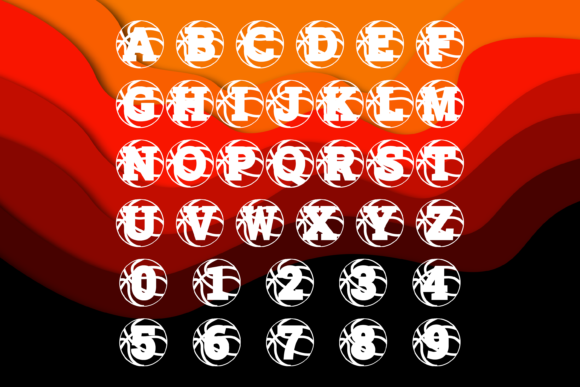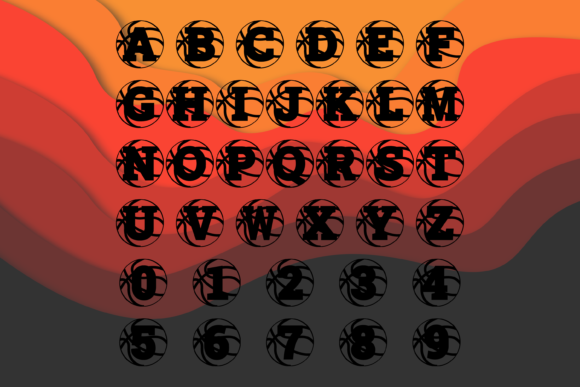
Introduction to Lay Up Font
Remember that moment when you’re working on a creative project, and you’re struggling to find the perfect font to bring it all together? It’s like searching for the missing piece of a puzzle. But what if you stumbled upon a font that instantly elevates your design, making it stand out from the crowd? For designers, finding the right font can be a game-changer, and that’s exactly what the Lay Up Font offers.
As a valuable design resource, the Lay Up Font is perfect for any sports-related design ideas. Its simplicity and strong visual effect make it an ideal choice for creating high-quality designs that grab attention. Whether you’re working on a project that requires a free download or a design that needs a transparent background, the Lay Up Font is a great addition to your design toolkit.
Key Features of Lay Up Font
• High-quality design resource ideal for creative projects
• Unique, modern design with clean lines and geometric shapes
• Perfect for use in logos, branding, and other graphic design applications
• Designed to be versatile and adaptable to various design styles
Honest Review: Lay Up Font
I recently had the chance to work with the Lay Up Font, and I’m excited to share my honest review. As a designer, I’m always on the lookout for high-quality design resources to elevate my creative projects. The Lay Up Font did not disappoint.
• ✨ Clean and modern aesthetic: The Lay Up Font has a sleek and sophisticated design that’s perfect for a variety of projects, from branding to editorial content.
• ✨ High-quality design: The font is crisp and well-designed, making it a great choice for any project that requires a professional look.
• ⚠️ Limited character set: While the font is well-designed, it’s limited in terms of character set, which may not be suitable for projects that require a wide range of characters.
Overall, I’m impressed with the Lay Up Font. It’s a great choice for designers who want a high-quality, modern font for their creative projects. While it may have some limitations, the benefits far outweigh the drawbacks. I highly recommend giving it a try!
Lay Up Font
Tips for Getting the Most Out of Lay Up Font
For best results, use Lay Up Font on a transparent background to create a clean and modern look. Experiment with different font sizes and colors to add depth and visual interest to your design. You can also pair it with other high-quality fonts to create a unique and professional look.
Common Use Cases for Lay Up Font
Lay Up Font is ideal for a variety of creative projects, including:
• Social media graphics
• Presentation design
• Document templates
• Marketing materials
Alternatives to Lay Up Font
The Great Vibes Font is a high-quality script font that is perfect for adding a touch of elegance to your creative project. It features a transparent background and is ideal for use in logos, signage, and other design elements. Great Vibes is a great alternative to Lay Up Font for designers looking for a more sophisticated and refined look.
When to use: Logos, signage, invitations, and other design elements where a touch of elegance is required.
Comparison to Lay Up Font: Great Vibes Font is more refined and elegant, making it a great choice for designers who want to add a touch of sophistication to their design project.
The Dancing Script Font is a beautiful, high-quality script font that is perfect for adding a touch of whimsy to your creative project. It features a transparent background and is ideal for use in logos, branding, and other design elements. Dancing Script is a great alternative to Lay Up Font for designers looking for a more playful and fun look.